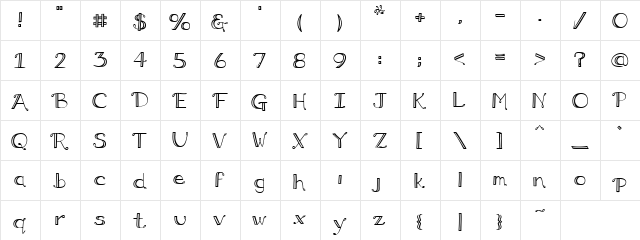
Lindsay Snicker Doodle Regular
Design Context for Lindsay Snicker Doodle Typeface
Lindsay Snicker Doodle is a composed and adaptable typeface that performs quietly and consistently across a wide range of design contexts.